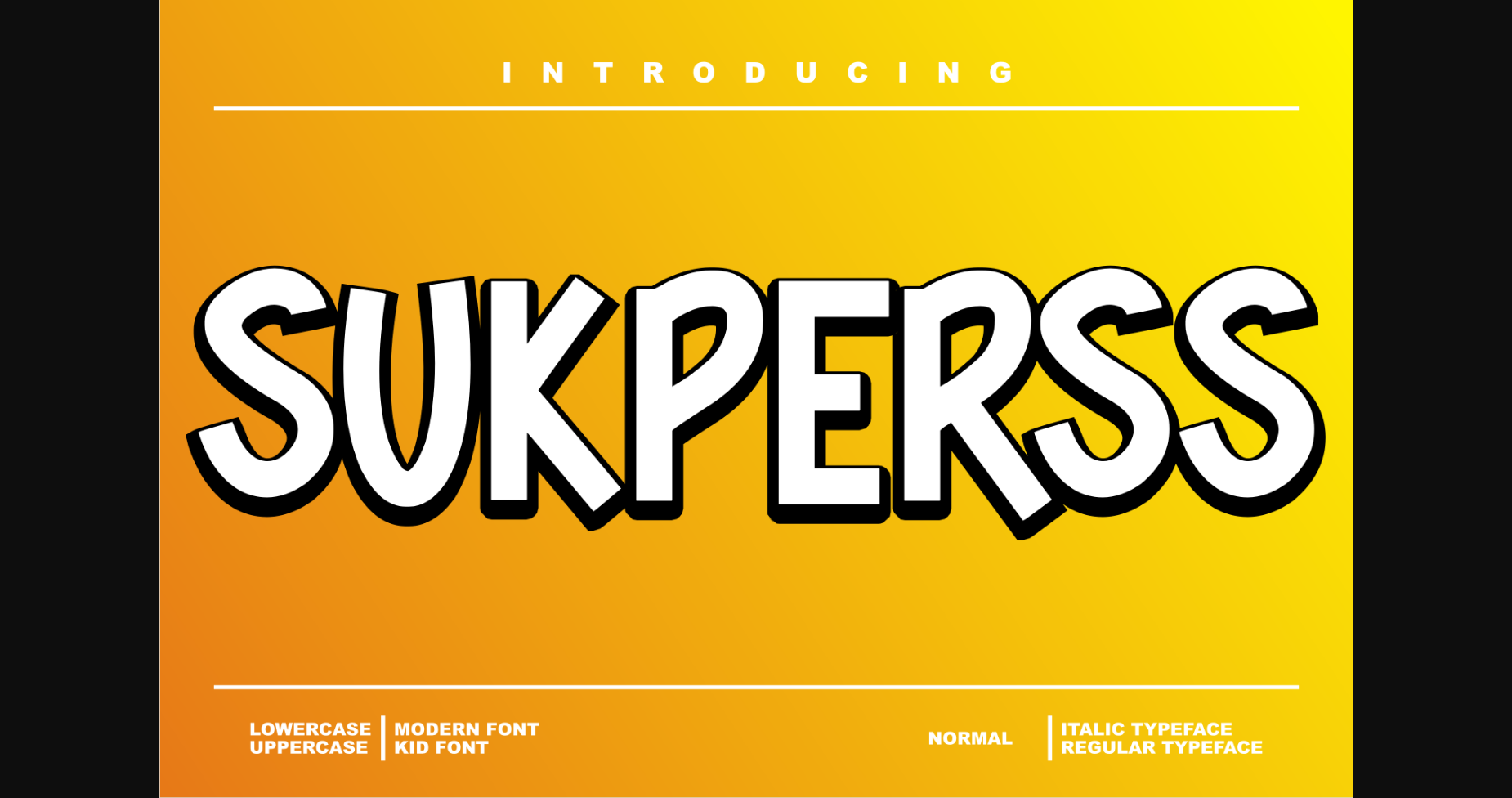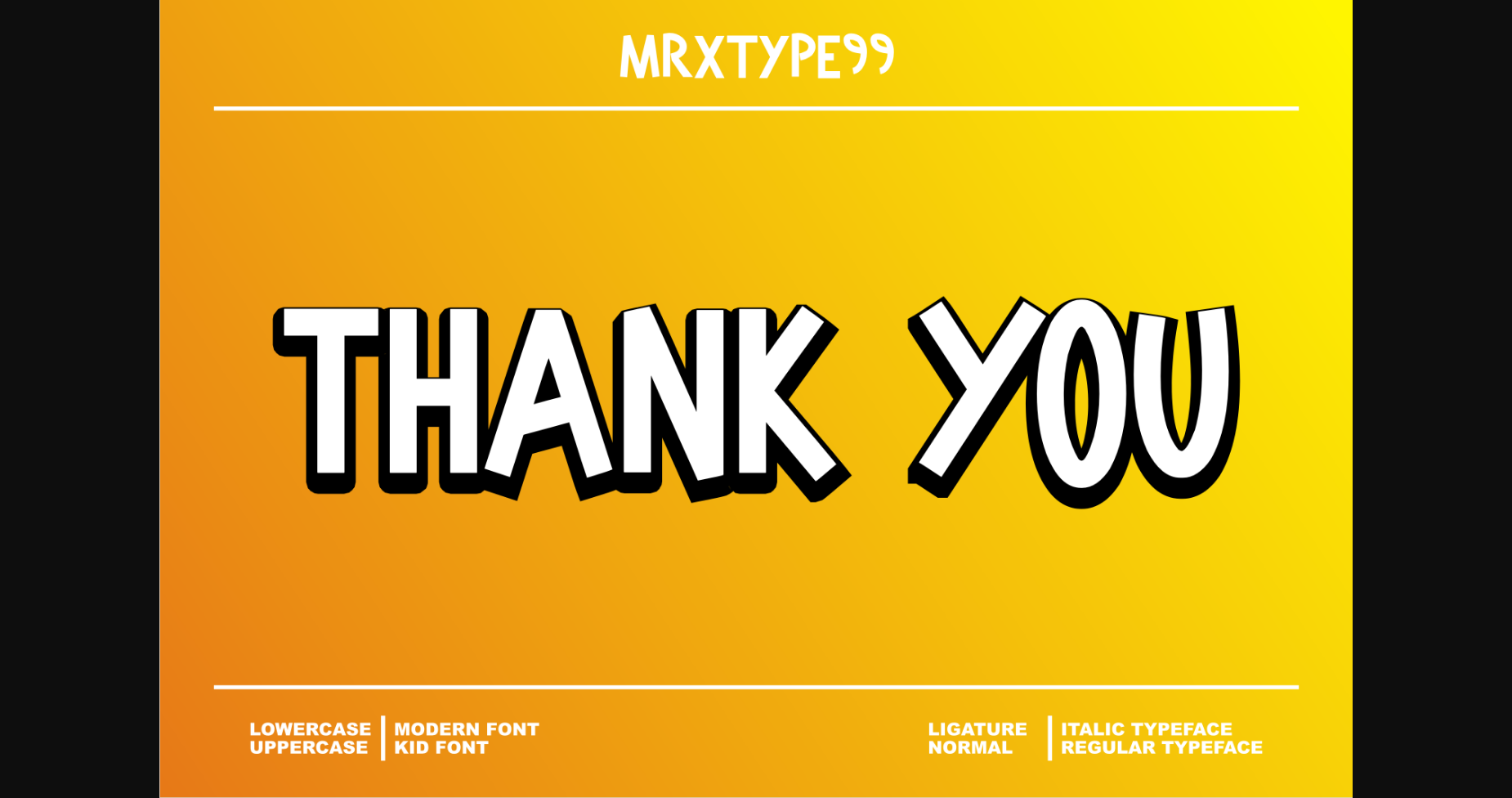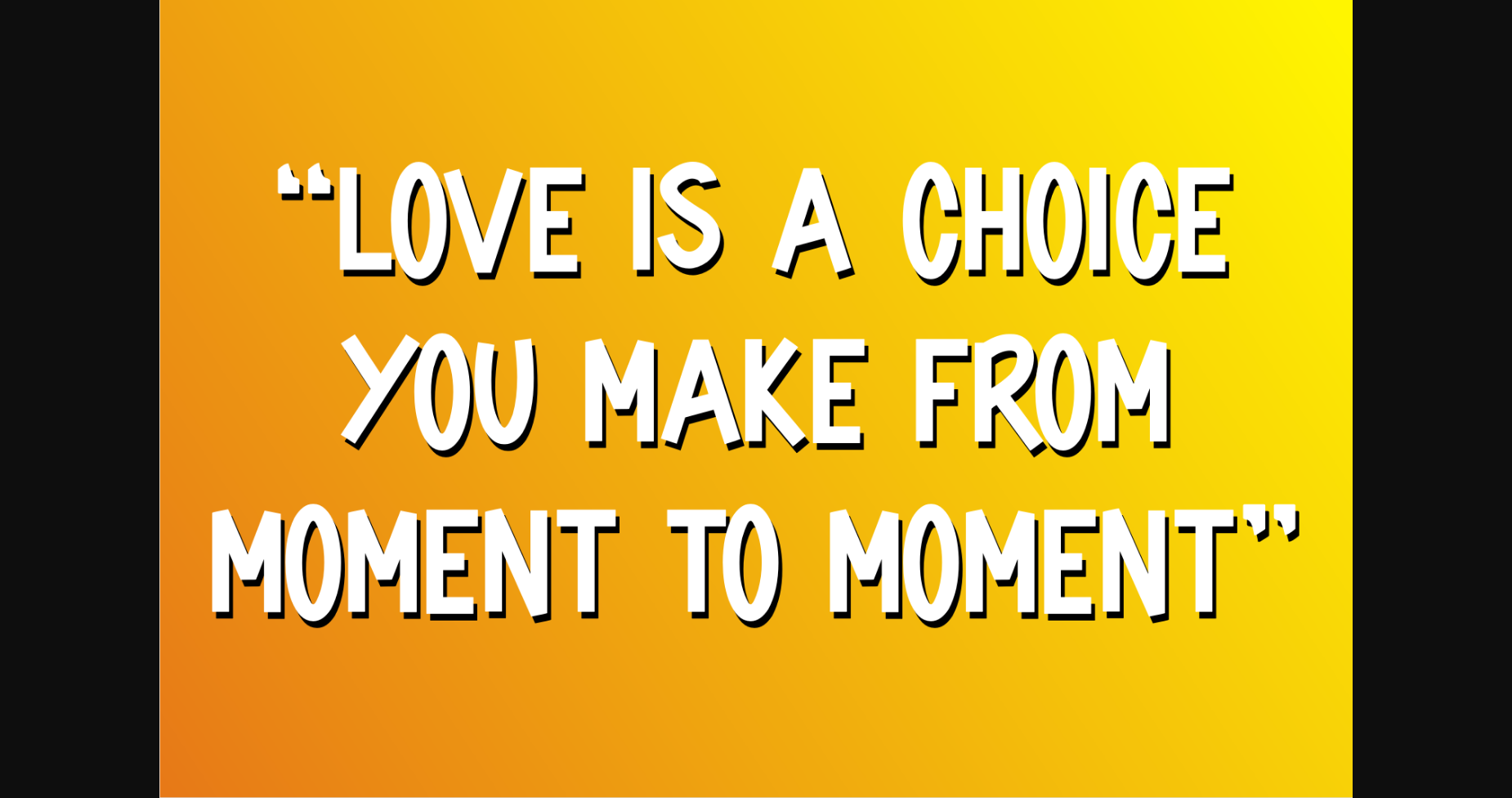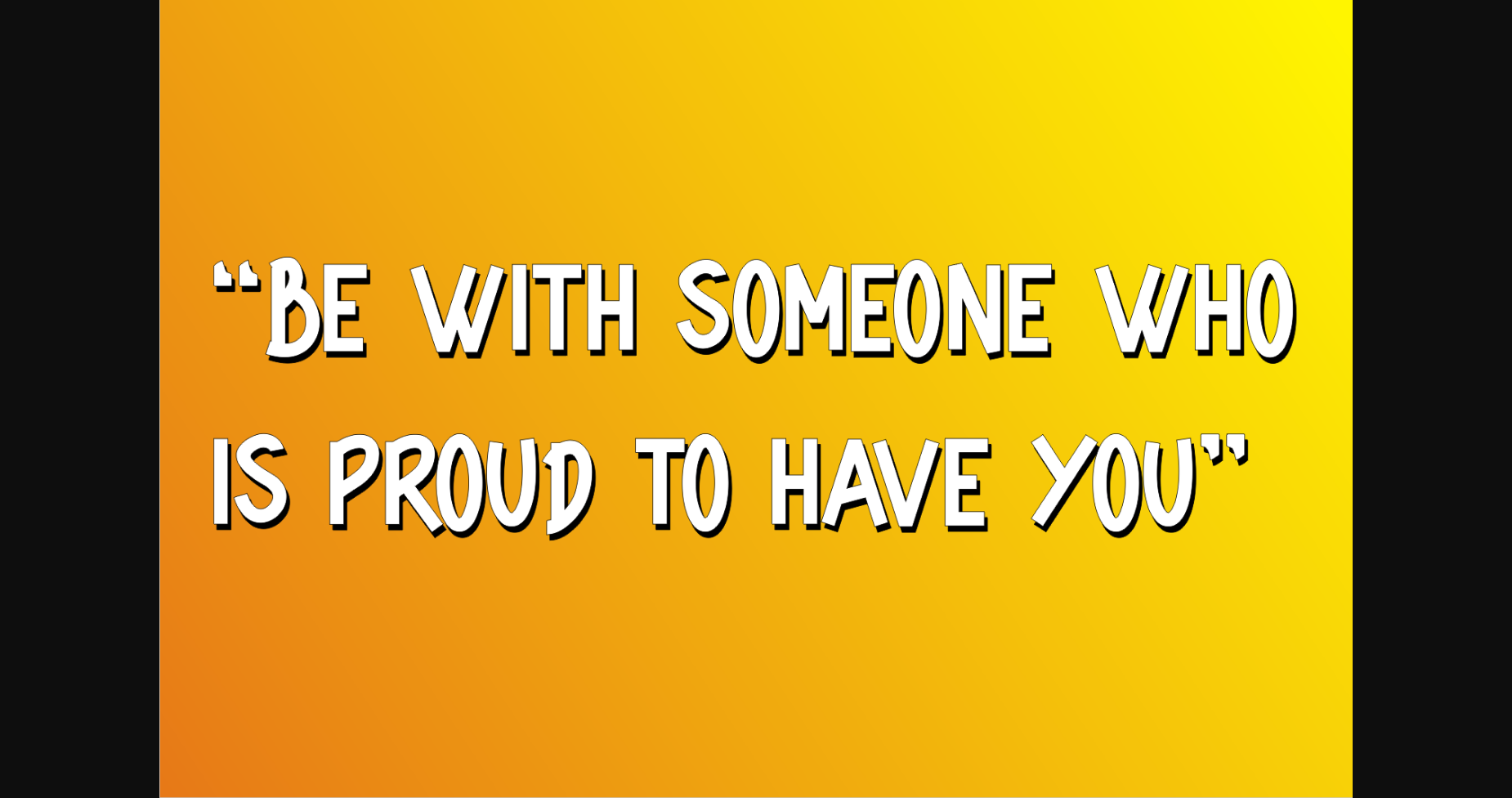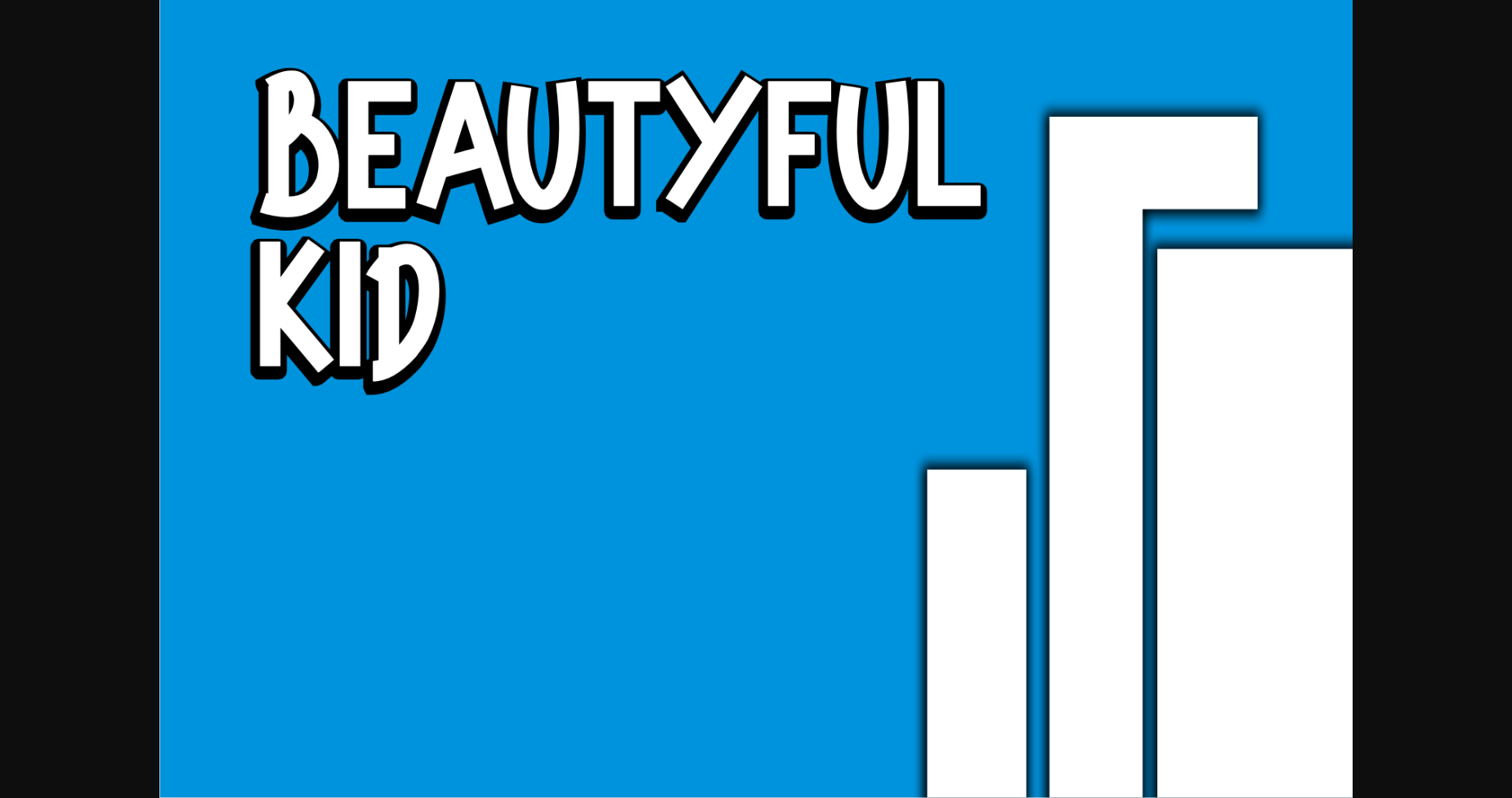
About Sukperss Font
Sukperss is a cool and trendy-looking sans serif font. This font is great for logos, badges, clothing, posters, and other projects that need to stand out from the crowd. Use this font for your designs and explore its endless possibilities.